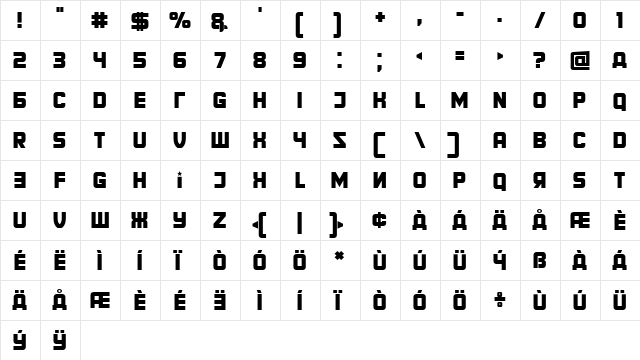
Territory Regular
Design Context for Territory Typeface
Territory is a composed and adaptable typeface that performs quietly and consistently across a wide range of design contexts.